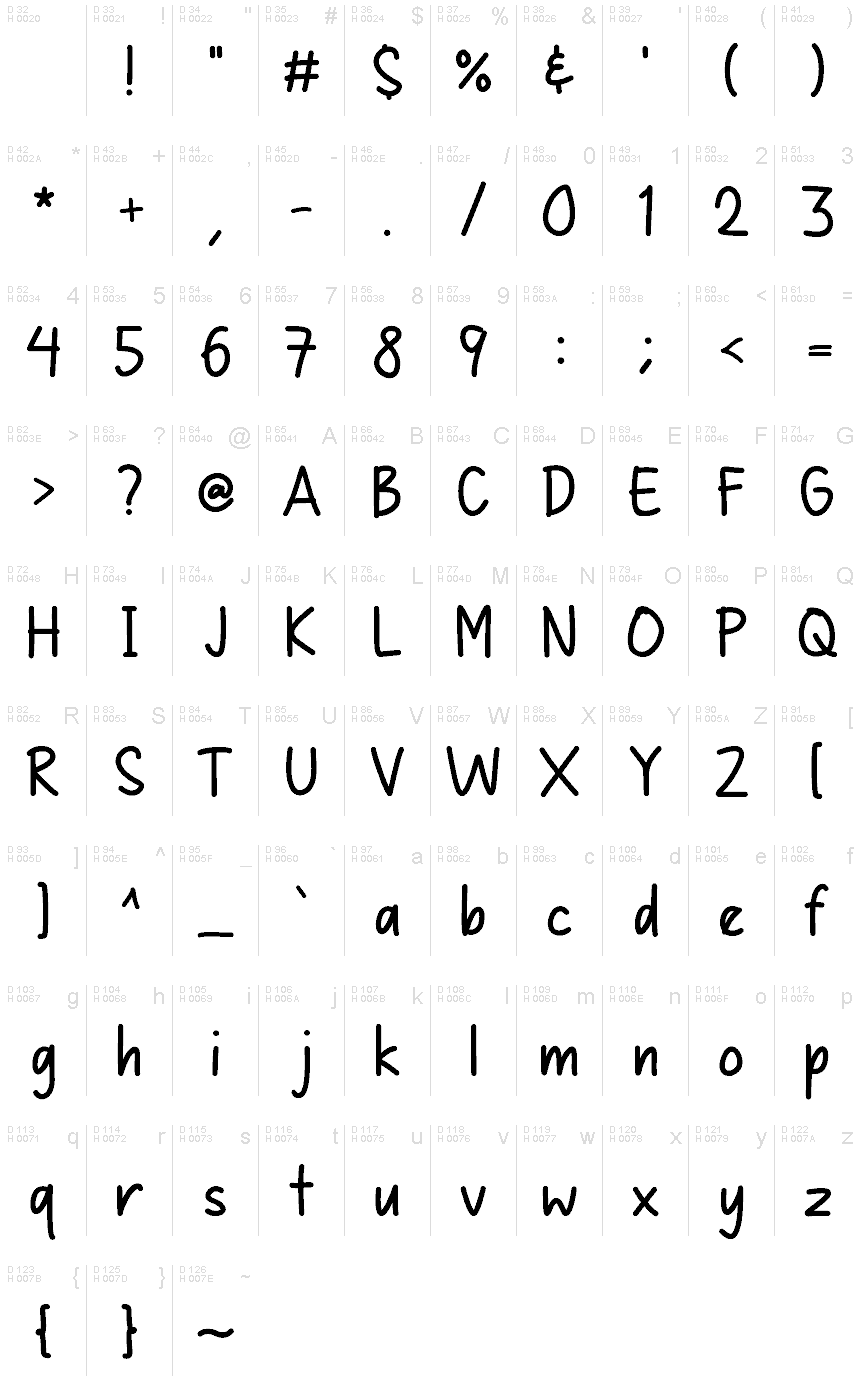
The Unleashed Dreams V2
The Unleashed Dreams V2 font by Mans Greback seeks to deliver the dreams closest to your heart. Enjoy an elegant handwritten appearance that brings together sophistication and informality for a beautifully balanced effect. This font’s smooth flow, expressive style, and organic feel make it a unique choice that you can freely use for wonderful designs.